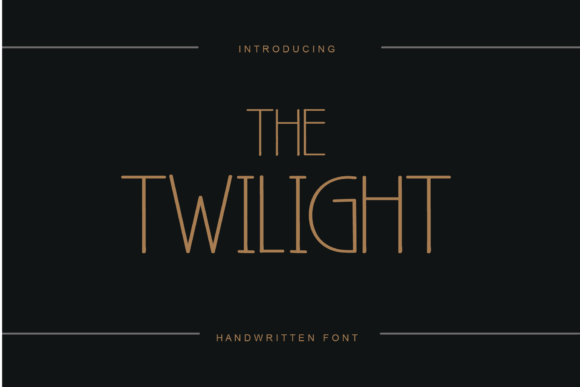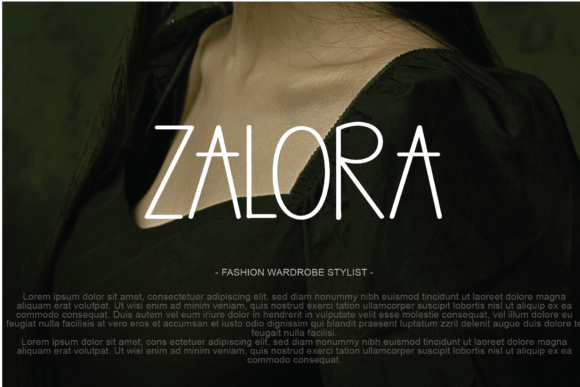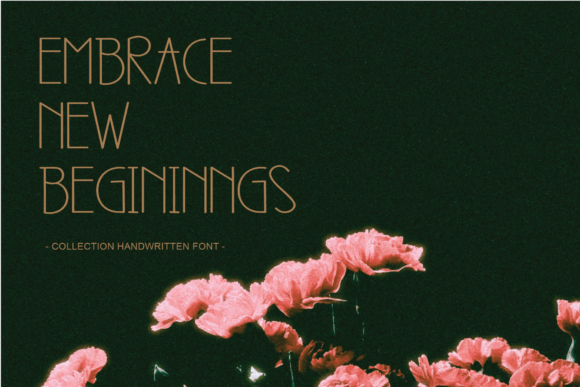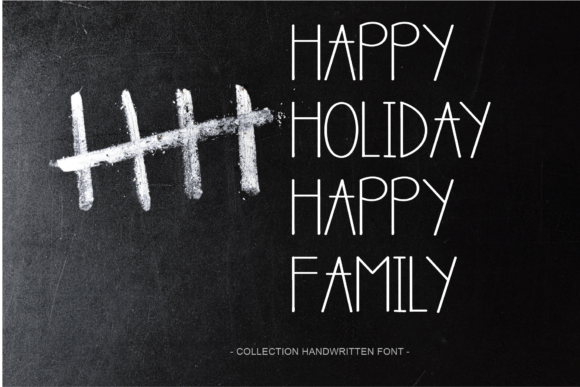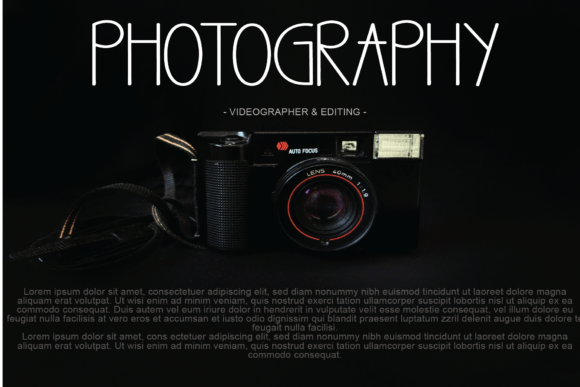
Thetwilight Font
Add Elegance to Your Designs with TheTwilight Font
TheTwilight Font is a sophisticated handwritten typeface that blends elegance with a modern aesthetic. Designed for creatives who value both charm and clarity, this font adds a graceful, personal touch to a wide variety of design projects.
Ideal Uses for TheTwilight Font
Thanks to its smooth lines and refined strokes, TheTwilight Font is perfect for:
• Wedding Invitations – Bring a romantic and timeless feel to your special day.
• Thank You Cards – Add sincerity and warmth with handwritten charm.
• Logos and Branding – Give your brand a unique and stylish identity.
• Greeting Cards – Make celebrations feel more heartfelt and personal.
• Business Cards – Leave a classy and lasting impression.
• Quotes and Typography Posters – Present words in a way that resonates.
• Advertisements and Product Labels – Enhance professionalism and visual appeal.
Whether used for digital content or print designs, this font maintains legibility and balance at all sizes.
Elegant Features and Compatibility
Its elegance makes it ideal for minimalist and high-end branding. At the same time, the handwritten feel gives your designs a touch of authenticity and warmth.